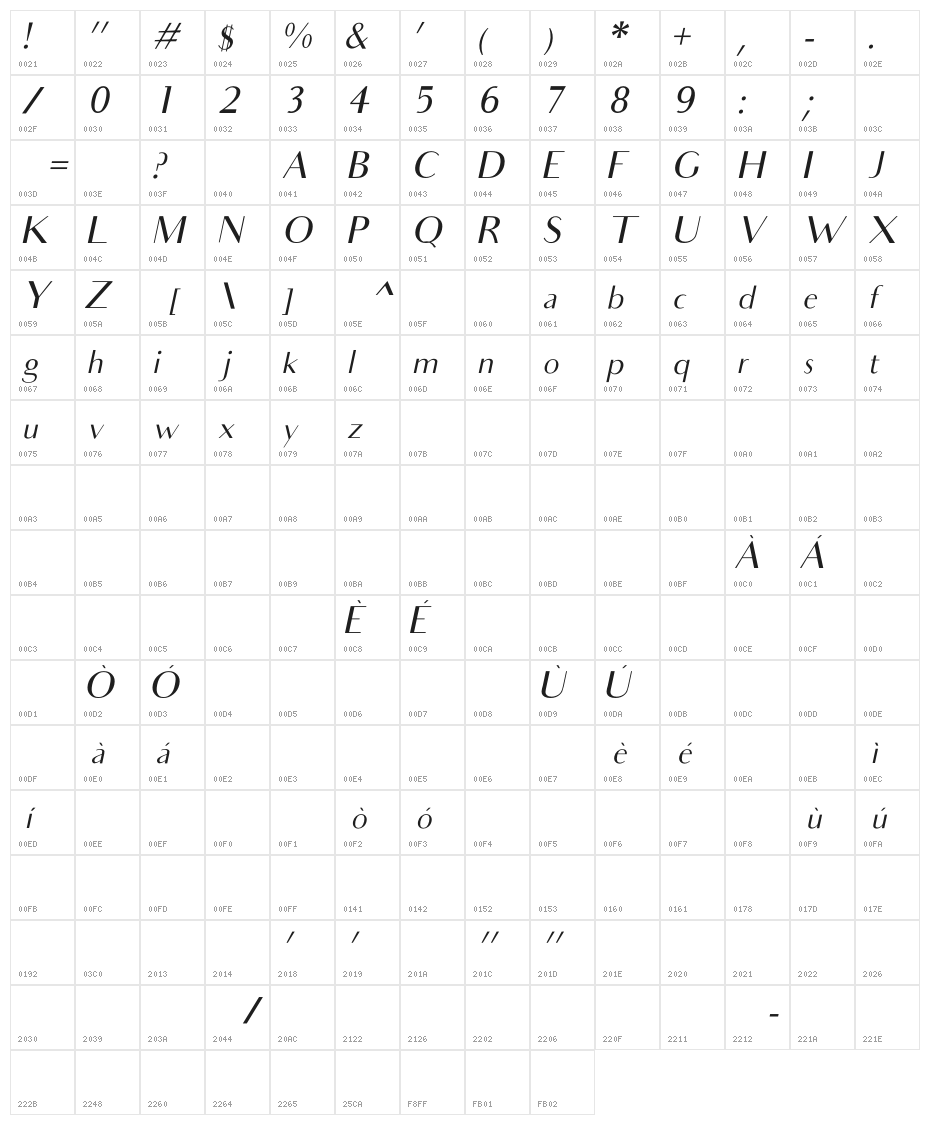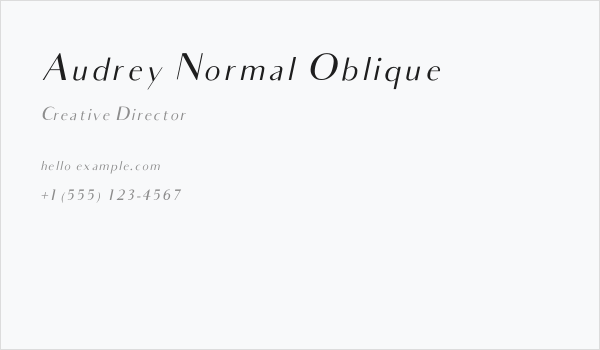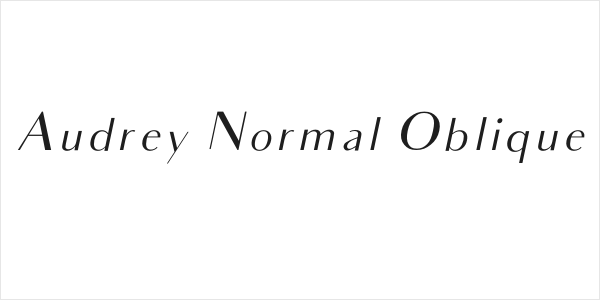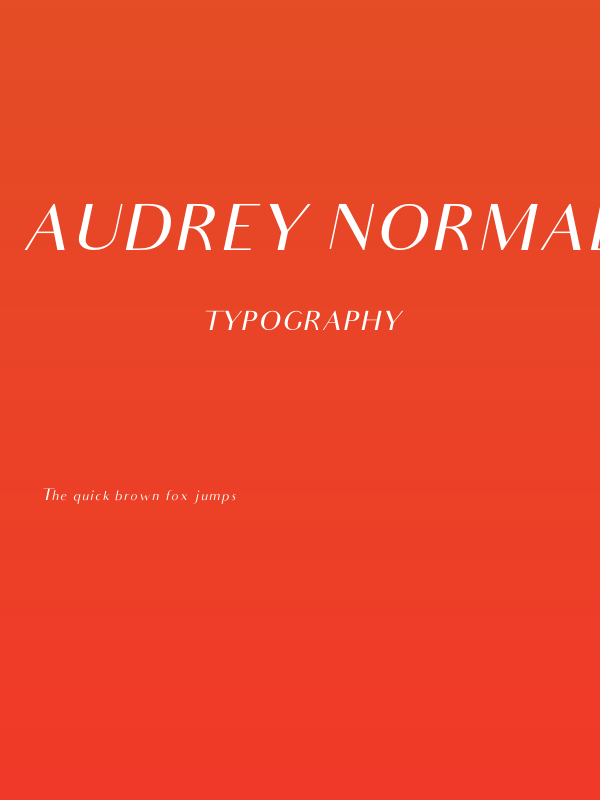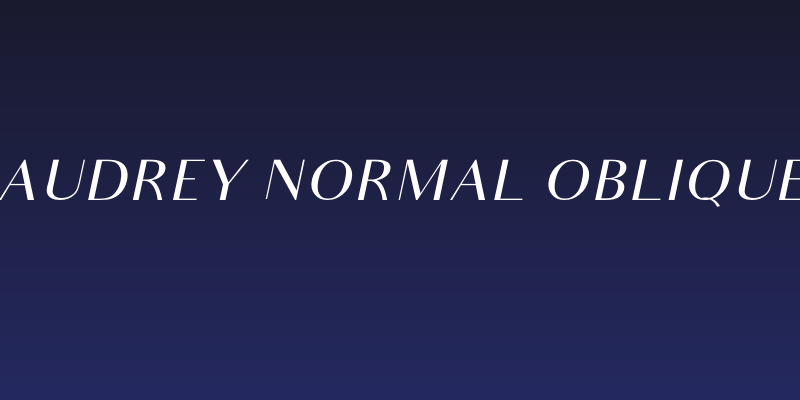
Audrey Normal Oblique Font
Audrey Normal Oblique Description
This font features a sleek and elegant design with a distinct oblique style, giving it a sophisticated and modern appearance. The characters are slightly slanted, adding a dynamic and fluid feel to the text. The strokes are clean and smooth, with a consistent thickness that provides a balanced and harmonious look. The uppercase letters are tall and commanding, while the lowercase letters maintain a graceful and refined form. The numerals are clear and legible, making them suitable for various applications. Special characters are well-integrated, maintaining the overall aesthetic of the font.
Use CaseHeadlines, Logos, Branding
Proposed ProjectsIdeal for fashion magazines, luxury branding, elegant invitations, and modern web design.